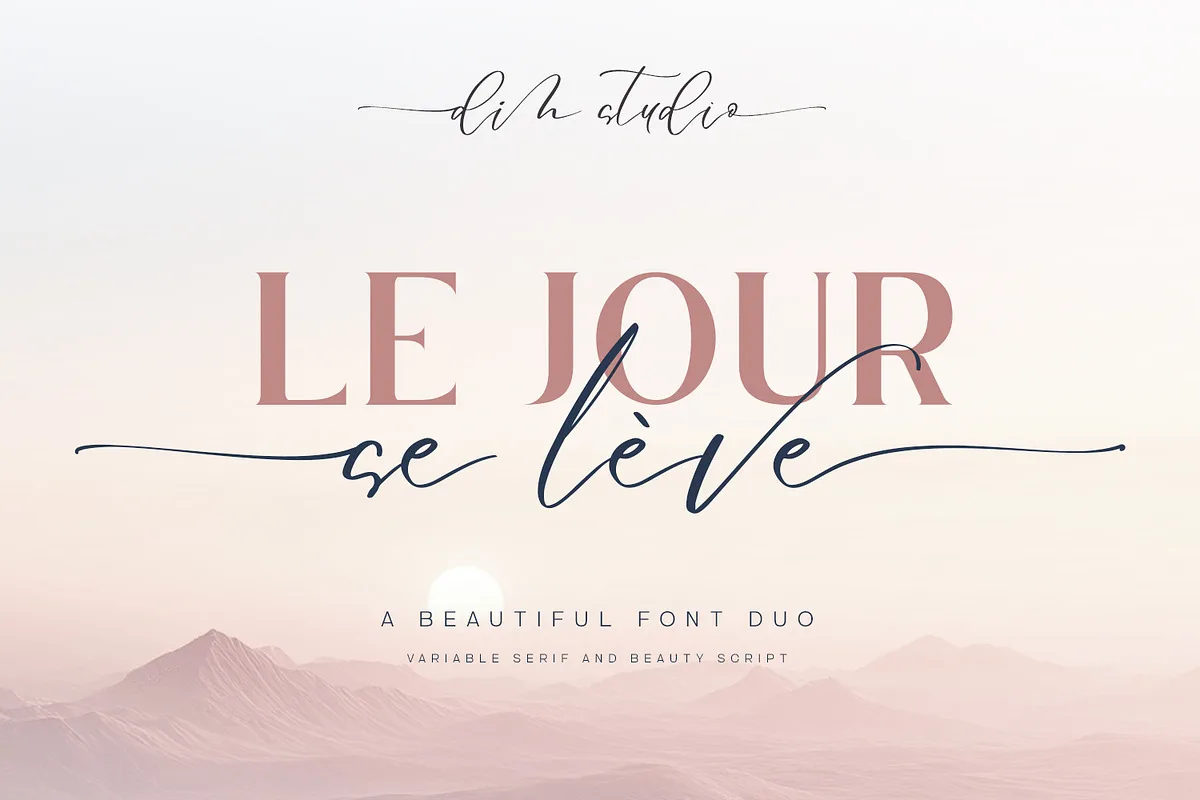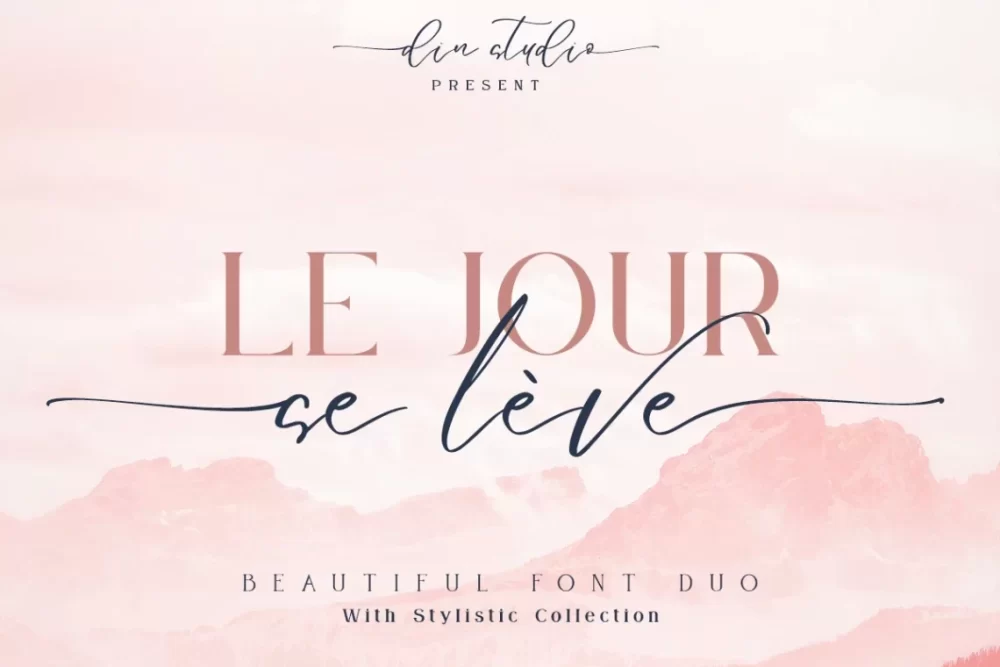
Le Jour is a beautiful calligraphy combined with modern serif. Made naturally handwritten. The combination of the font will make your design more beautiful and luxurious. This font is suitable for various designs, such as posters, banners, logos, book covers, headings, printed products, merchandise, social media, and more.
- Accents (Multilingual characters)
- 58 Alternates
- 52 Stylistic sets